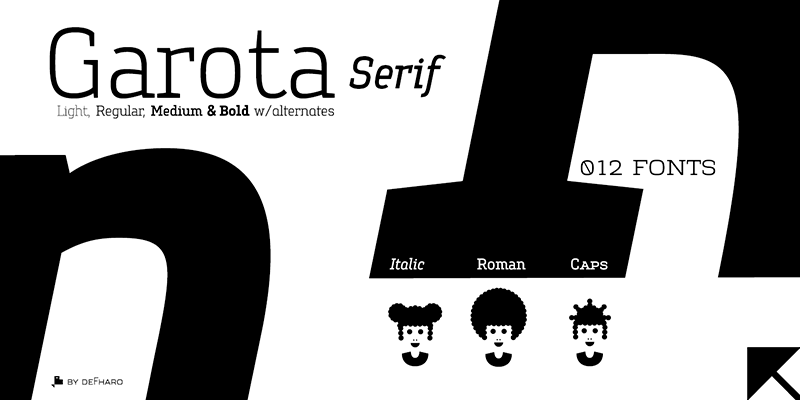
Font name: | Garota Serif |
Garota Slab Serif is a new typeface family that captures the essence of youth and freshness with a clean and elegant style. Inspired by organic shapes, this serif typeface combines soft curves and a slightly narrow proportion to create a friendly and exceptionally readable design, achieving a perfect balance between sophistication and accessibility. The family includes four weights �Light, Regular, Medium and Bold� and three distinctive styles �Roman, Italic and Small Caps� 12 fonts, allowing for exceptional versatility in use, and a rich and consistent typographic experience that perfectly adapts to the needs of editorial and advertising design. ========================= DOWNLOAD FULL VERSIONS & LICENSES: https://defharo.com/fonts/garota-serif/ ========================= |